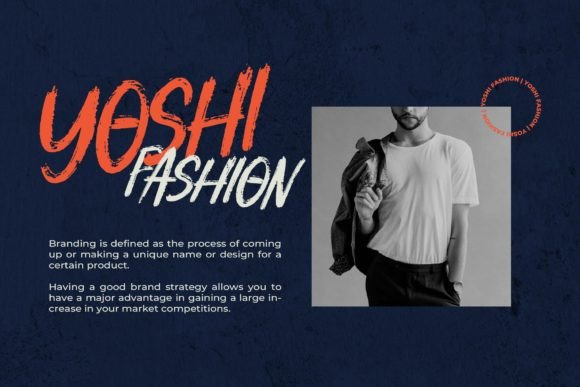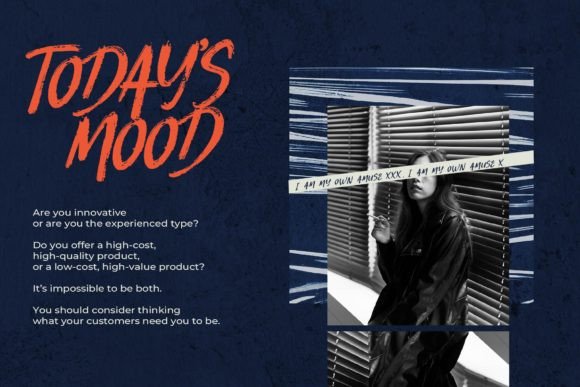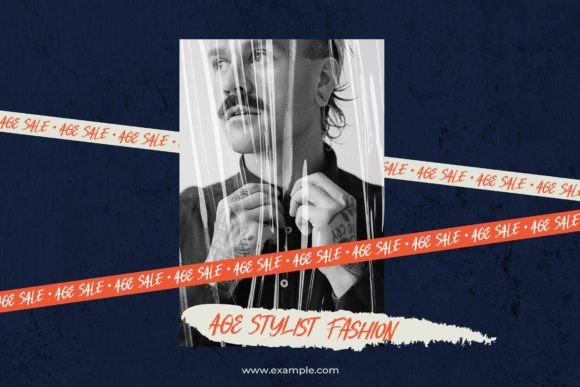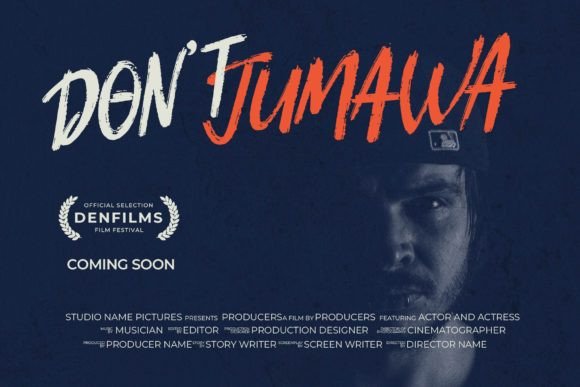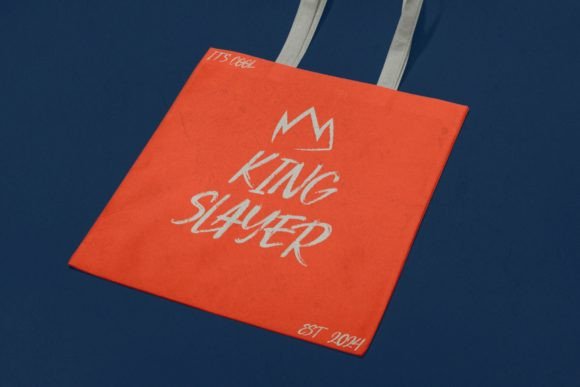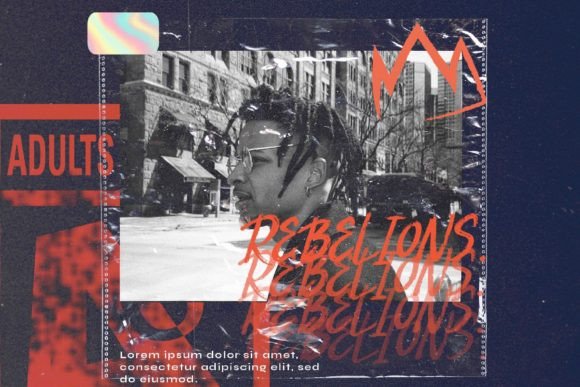
Introducing Blakecot Brush Font: Add a Personal Touch to Your Designs
Are you tired of using the same old fonts in your designs? Do you want to add a personal touch that sets your work apart from the rest? Look no further than Blakecot Brush Font, a stylish and natural handwritten font that looks like it was written with a brush.
What is Blakecot Brush Font?
Blakecot Brush Font is a unique and eye-catching font that mimics the look of brush writing. Its flowing lines and natural texture give it a distinctive, handmade feel that’s perfect for adding a touch of personality to your designs. Whether you’re a designer, crafty DIY enthusiast, or simply someone who loves to create, Blakecot Brush Font is the perfect choice for anyone looking to add a little extra something special to their work.
Key Features of Blakecot Brush Font
- Handwritten look: Blakecot Brush Font has a natural, handwritten look that’s perfect for adding a personal touch to your designs.
- Brush-like texture: The font’s texture is reminiscent of brush writing, giving it a unique and eye-catching feel.
- Flowing lines: The font’s lines are smooth and flowing, making it perfect for use in a variety of design applications.
- Stylish and modern: Despite its handmade look, Blakecot Brush Font is a stylish and modern font that’s perfect for use in contemporary designs.
Uses for Blakecot Brush Font
Blakecot Brush Font is a versatile font that can be used in a wide range of design applications, including:
- Graphic design: Use Blakecot Brush Font to add a personal touch to your graphic designs, such as brochures, flyers, and posters.
- Branding: The font’s unique look makes it perfect for use in branding applications, such as logos and business cards.
- DIY projects: Add a touch of personality to your DIY projects, such as crafts, scrapbooking, and party decorations.
- Digital design: Use Blakecot Brush Font in your digital designs, such as social media graphics, blog posts, and website headers.
Tips for Using Blakecot Brush Font
Here are a few tips for getting the most out of Blakecot Brush Font:
- Use it sparingly: Because of its unique look, Blakecot Brush Font is best used sparingly. Use it to add a touch of personality to your designs, but avoid overusing it.
- Pair it with other fonts: Blakecot Brush Font pairs well with other fonts, such as sans-serif fonts. Experiment with different pairings to find the one that works best for your design.
- Adjust the size and color: Experiment with different sizes and colors to find the one that works best for your design.
Blakecot Brush Font is a unique and eye-catching font that’s perfect for adding a personal touch to your designs. Its natural, handwritten look and brush-like texture make it a standout choice for designers, crafty DIY enthusiasts, and anyone looking to add a little extra something special to their work. With its versatility and stylish look, Blakecot Brush Font is sure to become a favorite in your design toolkit.